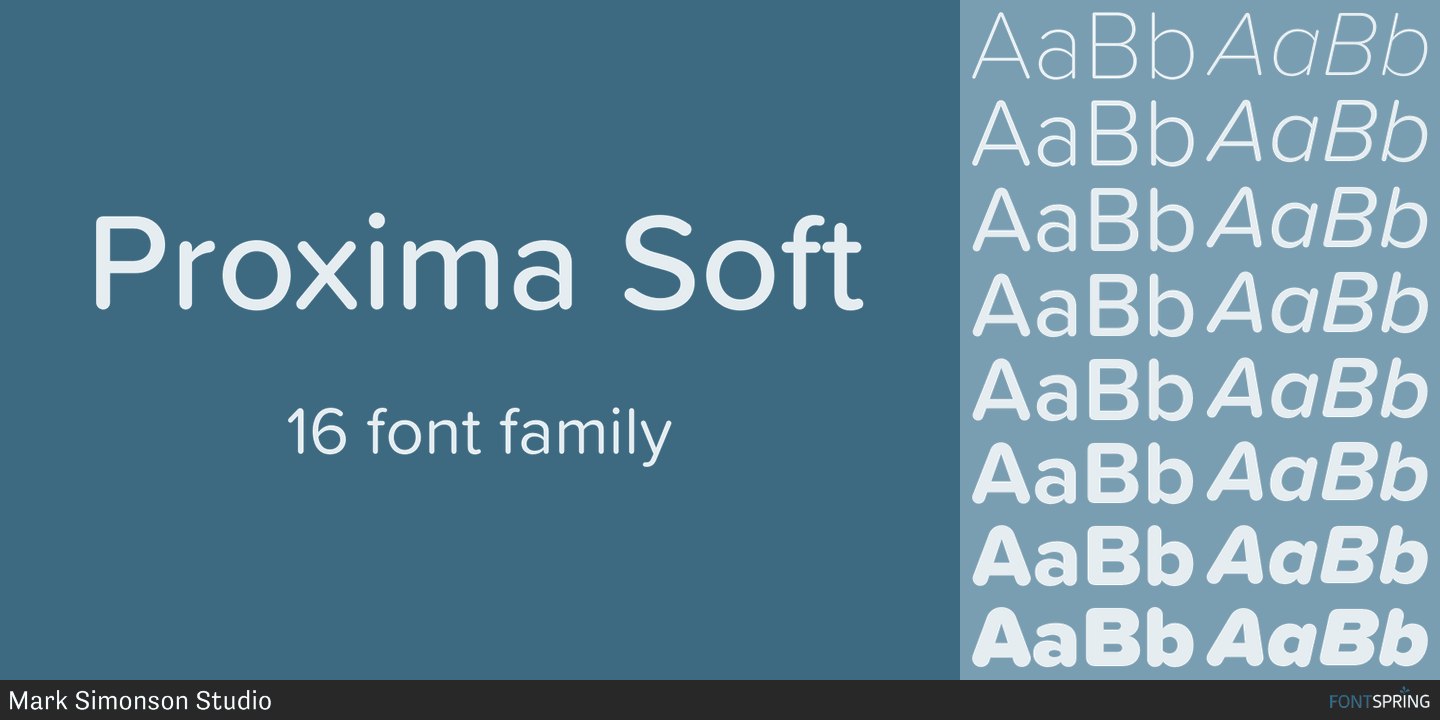
Proxima Soft Font
Proxima Soft Font - Web proxima soft is a rounded version of proxima nova. Web explore proxima soft designed by mark simonson at adobe fonts. A sans serif typeface with 48 styles, available from. It has the same extensive. Web proxima soft is a font family with 8 weights, 3 widths, and matching italics, designed by mark simonson.
It has the same extensive. Web proxima soft is a font family with 8 weights, 3 widths, and matching italics, designed by mark simonson. Web proxima soft is a rounded version of proxima nova. A sans serif typeface with 48 styles, available from. Web explore proxima soft designed by mark simonson at adobe fonts.
Web explore proxima soft designed by mark simonson at adobe fonts. A sans serif typeface with 48 styles, available from. It has the same extensive. Web proxima soft is a rounded version of proxima nova. Web proxima soft is a font family with 8 weights, 3 widths, and matching italics, designed by mark simonson.
Proxima Soft Font Fontspring
A sans serif typeface with 48 styles, available from. Web proxima soft is a font family with 8 weights, 3 widths, and matching italics, designed by mark simonson. Web explore proxima soft designed by mark simonson at adobe fonts. Web proxima soft is a rounded version of proxima nova. It has the same extensive.
Proxima Soft Font Fontspring
Web explore proxima soft designed by mark simonson at adobe fonts. A sans serif typeface with 48 styles, available from. It has the same extensive. Web proxima soft is a rounded version of proxima nova. Web proxima soft is a font family with 8 weights, 3 widths, and matching italics, designed by mark simonson.
Proxima Soft Font Family by Mark Simonson Studio Fontspring
Web proxima soft is a font family with 8 weights, 3 widths, and matching italics, designed by mark simonson. A sans serif typeface with 48 styles, available from. It has the same extensive. Web proxima soft is a rounded version of proxima nova. Web explore proxima soft designed by mark simonson at adobe fonts.
Proxima Soft Mark Simonson
Web proxima soft is a font family with 8 weights, 3 widths, and matching italics, designed by mark simonson. It has the same extensive. Web proxima soft is a rounded version of proxima nova. Web explore proxima soft designed by mark simonson at adobe fonts. A sans serif typeface with 48 styles, available from.
Web proxima soft is a rounded version of proxima nova. Web explore proxima soft designed by mark simonson at adobe fonts. Web proxima soft is a font family with 8 weights, 3 widths, and matching italics, designed by mark simonson. A sans serif typeface with 48 styles, available from. It has the same extensive.
Proxima Soft Fonts by Mark Simonson Studio • Fontspring
Web explore proxima soft designed by mark simonson at adobe fonts. Web proxima soft is a font family with 8 weights, 3 widths, and matching italics, designed by mark simonson. Web proxima soft is a rounded version of proxima nova. A sans serif typeface with 48 styles, available from. It has the same extensive.
A sans serif typeface with 48 styles, available from. Web proxima soft is a font family with 8 weights, 3 widths, and matching italics, designed by mark simonson. Web explore proxima soft designed by mark simonson at adobe fonts. It has the same extensive. Web proxima soft is a rounded version of proxima nova.
Proxima Soft Desktop Font & WebFont YouWorkForThem Kerning
Web proxima soft is a font family with 8 weights, 3 widths, and matching italics, designed by mark simonson. A sans serif typeface with 48 styles, available from. It has the same extensive. Web proxima soft is a rounded version of proxima nova. Web explore proxima soft designed by mark simonson at adobe fonts.
Proxima Soft, font by Mark Simonson Studio. Proxima Soft can be
A sans serif typeface with 48 styles, available from. Web proxima soft is a rounded version of proxima nova. Web proxima soft is a font family with 8 weights, 3 widths, and matching italics, designed by mark simonson. It has the same extensive. Web explore proxima soft designed by mark simonson at adobe fonts.
Proxima Soft Condensed Font Fontspring
Web explore proxima soft designed by mark simonson at adobe fonts. Web proxima soft is a rounded version of proxima nova. It has the same extensive. A sans serif typeface with 48 styles, available from. Web proxima soft is a font family with 8 weights, 3 widths, and matching italics, designed by mark simonson.
Web Proxima Soft Is A Font Family With 8 Weights, 3 Widths, And Matching Italics, Designed By Mark Simonson.
It has the same extensive. Web explore proxima soft designed by mark simonson at adobe fonts. Web proxima soft is a rounded version of proxima nova. A sans serif typeface with 48 styles, available from.